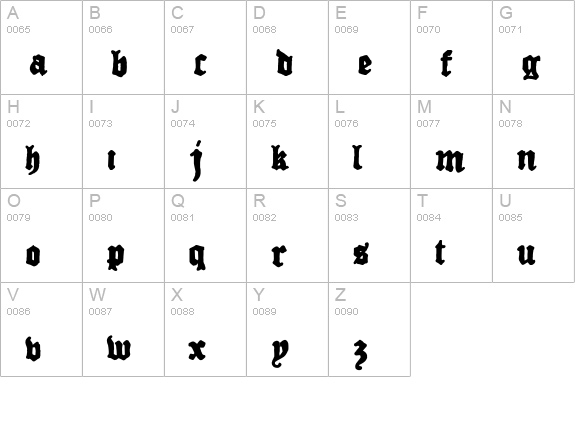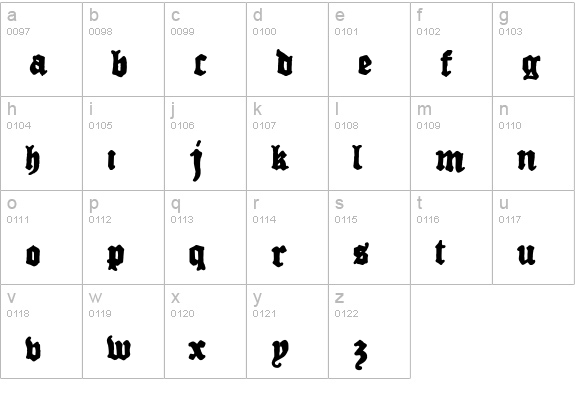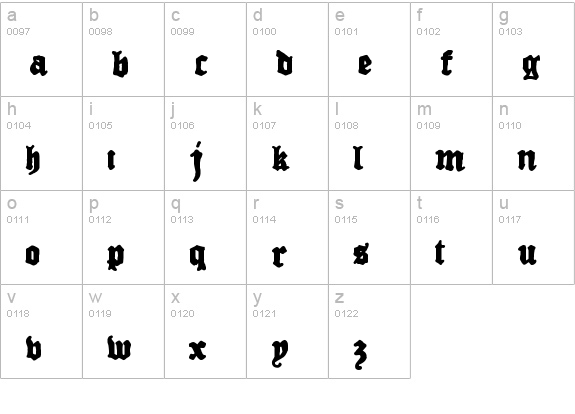
Drugstore Regular Font Details
Drugstore Regular is the standard, neutral variant in the Drugstore typeface family \xE2\x80\x94 well suited to general body text, paragraphs, and standard typographic work.
Introducing Drugstore Regular, a versatile and contemporary font that effortlessly blends modernity with a hint of retro charm. This typeface is perfect for capturing attention and adding a touch of personality to any creative project. With its clean lines and balanced letterforms, Drugstore Regular exudes a sense of confidence and professionalism. What sets Drugstore Regular apart is its accessibility. Not only does it offer a wide range of weights and styles, but it is also freely available to download at FontsMarket.com. This means that designers, artists, and individuals alike can easily access and utilize this font without any restrictions or limitations. Whether you're designing a logo, creating eye-catching headlines, or crafting engaging social media posts, Drugstore Regular is a reliable choice that will elevate your work to the next level. Its versatility allows for seamless integration across various mediums, from print to digital, ensuring a consistent and visually appealing aesthetic. With its timeless appeal and modern functionality, Drugstore Regular is sure to become your go-to typeface for all your design needs. Explore the possibilities and discover the endless creative opportunities that await you with this exceptional font. Download Drugstore Regular for free at FontsMarket.com and unlock the potential to bring your vision to life with style and ease.